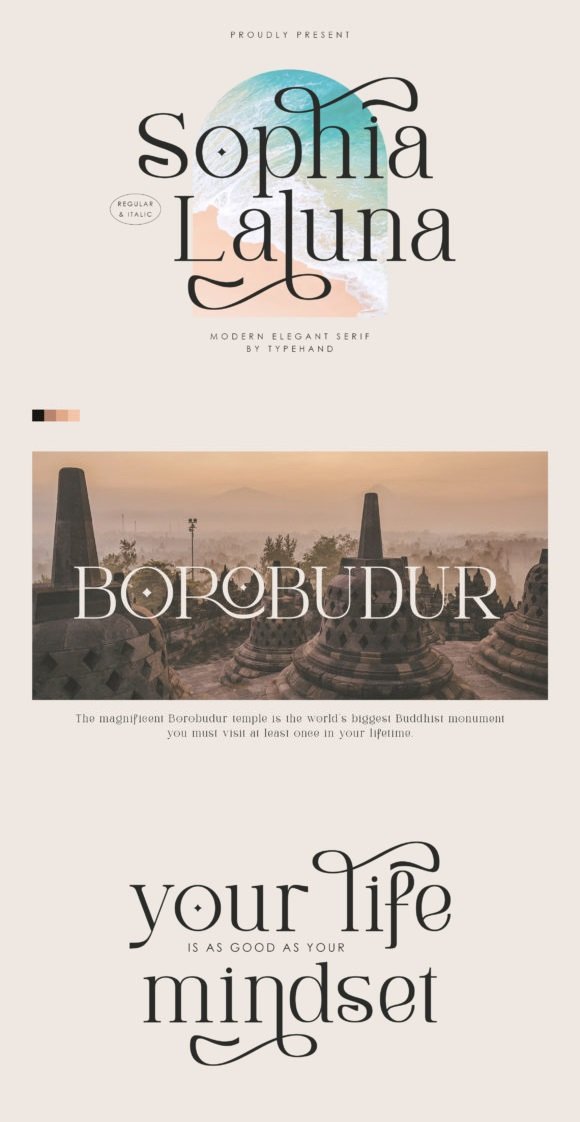
Sophia Laluna is a slim and tall serif font. It is stylish and chic and it will most certainly elevate each of your creations. This font is PUA encoded which means you can access all of the glyphs and swashes with ease.